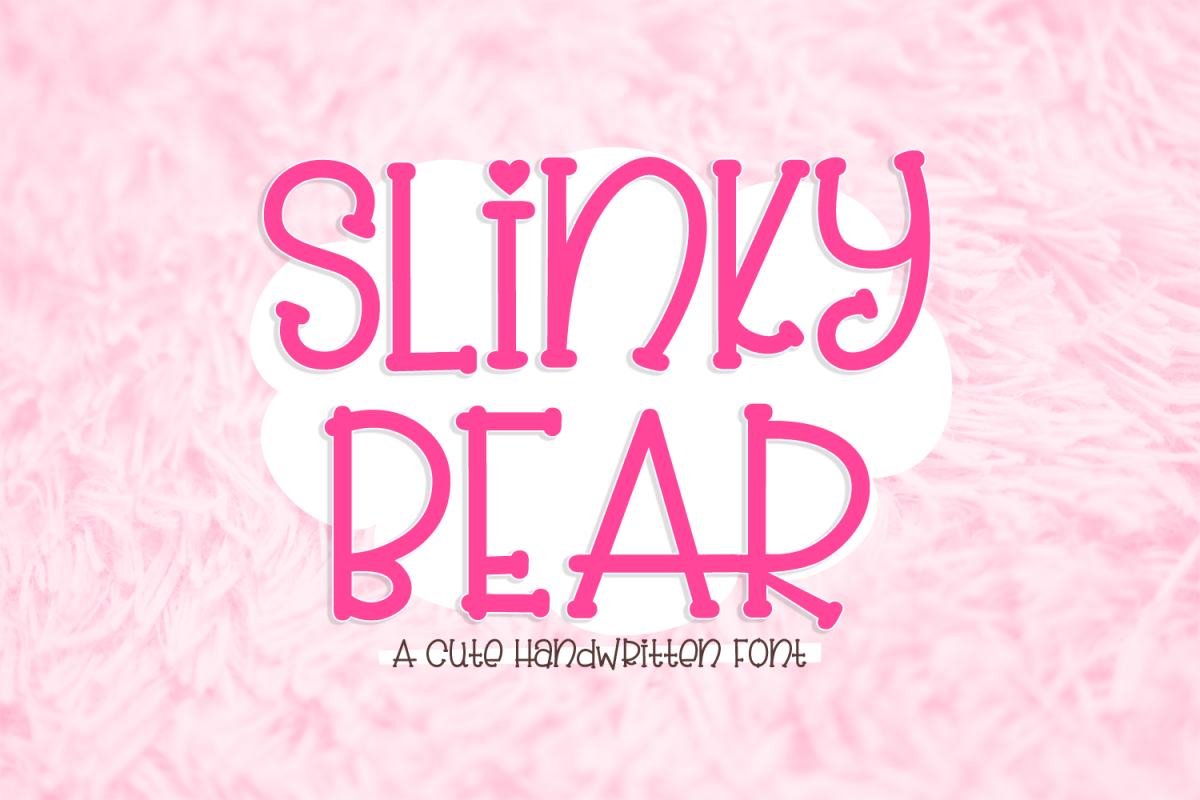
Slinky Bear - a cute handwritten font
Slinky Bear
SlinkyBear Hearts
Slinky Bear - a cute handwritten font
The font includes mixed case alphabet letters, accent alphabet, numbers and symbols, punctuation and ligatures.
This font is great for logos, t-shirt designs, decals, and more!